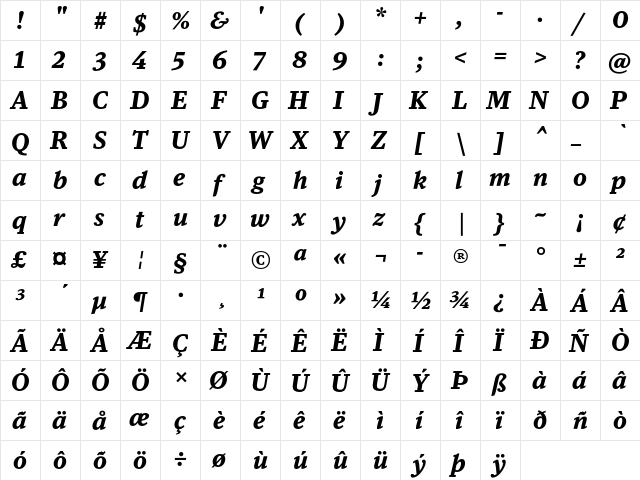
DB News Bold Italic Font Preview
Design Context for DB News Typeface
DB News takes a measured approach to typography — its balanced proportions and neutral character make it a reliable workhorse for both digital and print work. Its italic angle brings a sense of urgency and motion to the letterforms. Its bold stroke weight gives it real presence on the page.
Pro Tip: Try DB News for annotation and caption copy alongside an upright companion — the contrast in angle creates a dynamic but ordered typographic system.